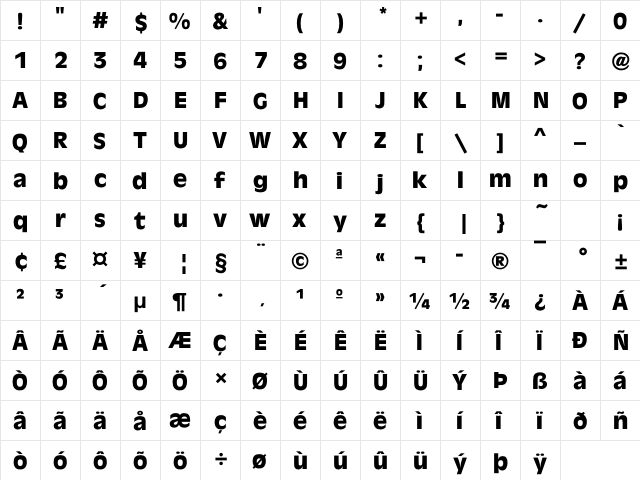
LHF American Sans Regular
| Foundry | Arthur Vanson for Letterhead Fonts |
| Designer | Arthur Vanson |
Design Context for LHF American Sans Typeface
LHF American Sans offers clean, dependable letterforms without strong stylistic allegiance, making it a practical choice for designers who need flexibility.
Pro Tip: Pair LHF American Sans with a font of contrasting weight or personality to build a more expressive typographic hierarchy.